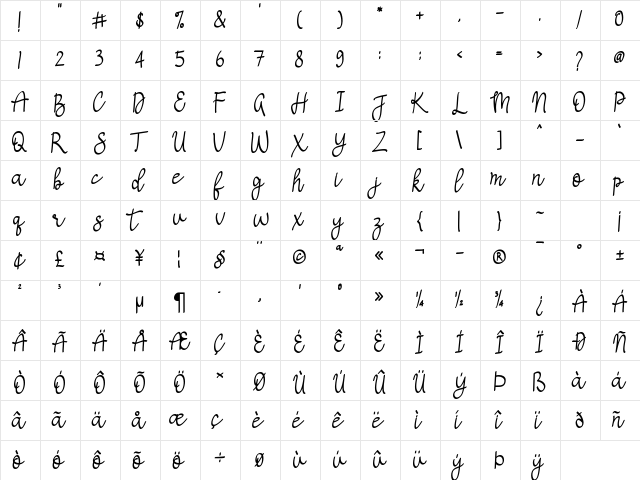
Naella Regular
| Designer | AEN Creative Studio |
Design Context for Naella Typeface
Naella is a composed and adaptable typeface that performs quietly and consistently across a wide range of design contexts.